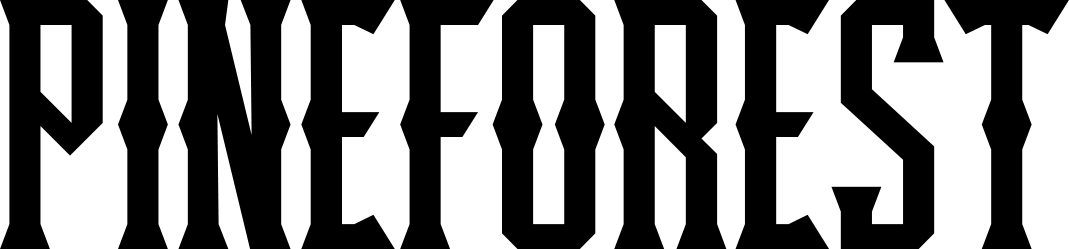
Pineforest Font
Use Pineforest Display if you want those steady and formal vintage endowments and characteristics of a retro font. It brings the elegance of tall classic letterings to your designs, whether it’s the logotypes, flyers, movie posters, etc.